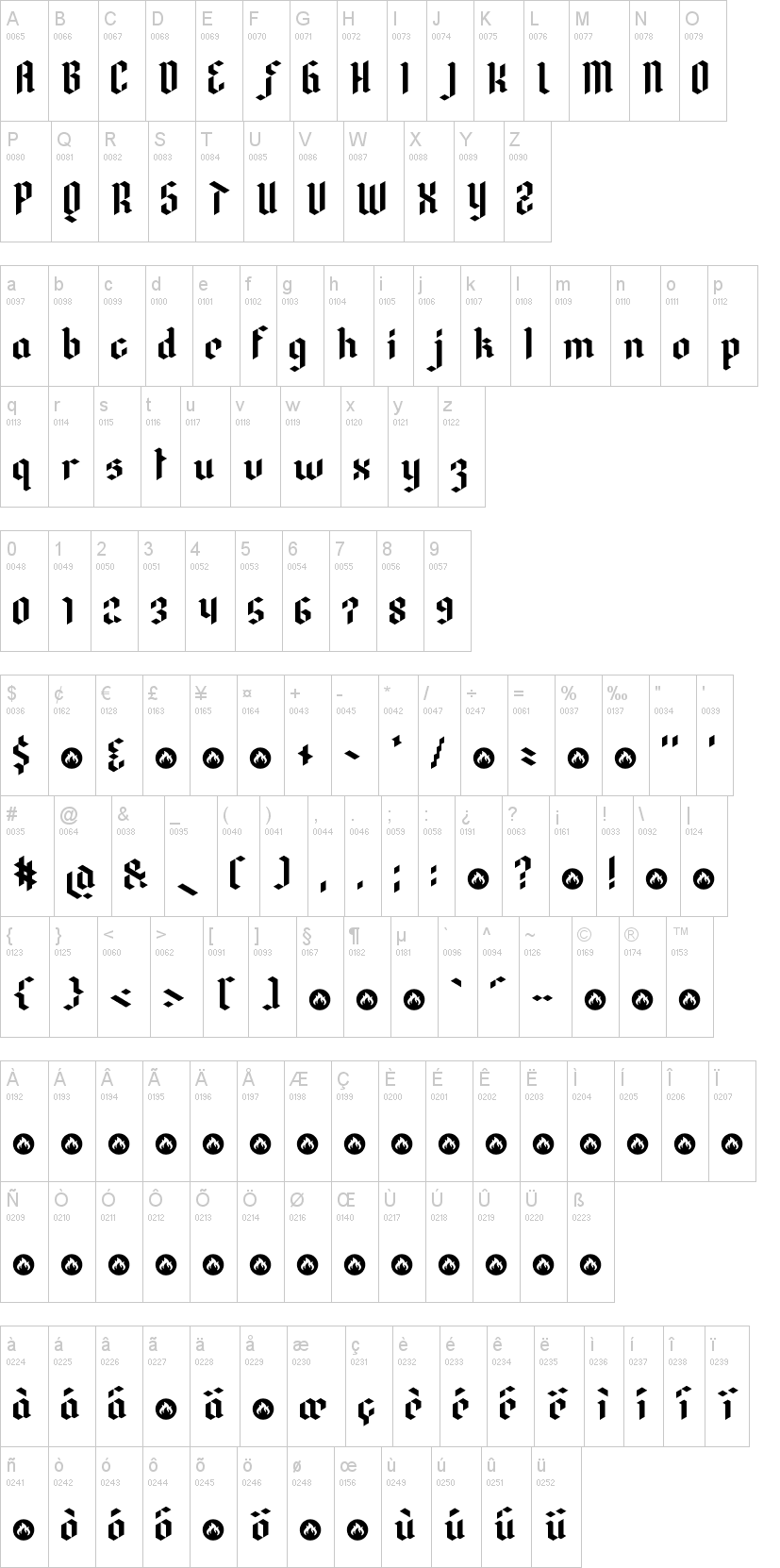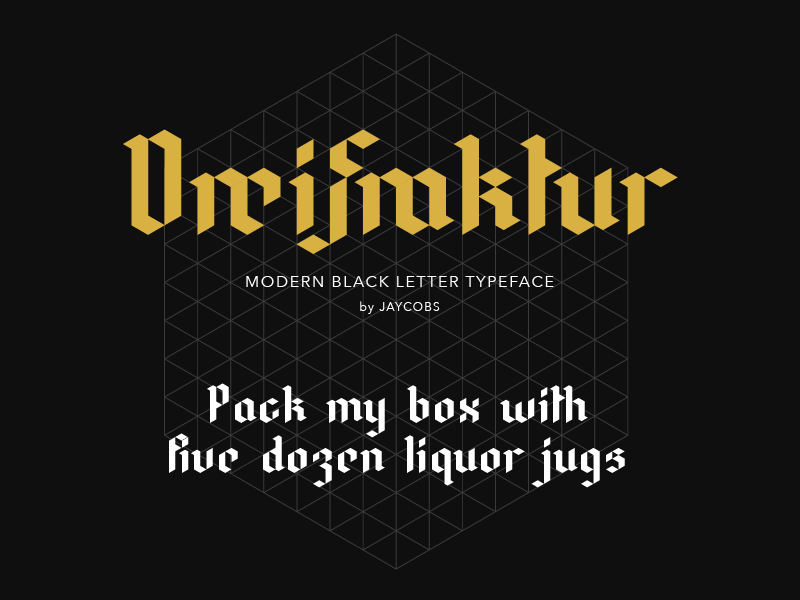
Note of the authorWhile working on a retro game I made several gothic inspired typeface with a really small square grid. I really enjoyed the constraint of using a low resolution to make font with such style. I reused the same process with DreiFraktur, a geometric typeface with the particularity of being draw with a isometric grid. Each character is made a multiples triangles and respect a strict composition to look like a blackletter typeface and respect the path of a beveled brush.